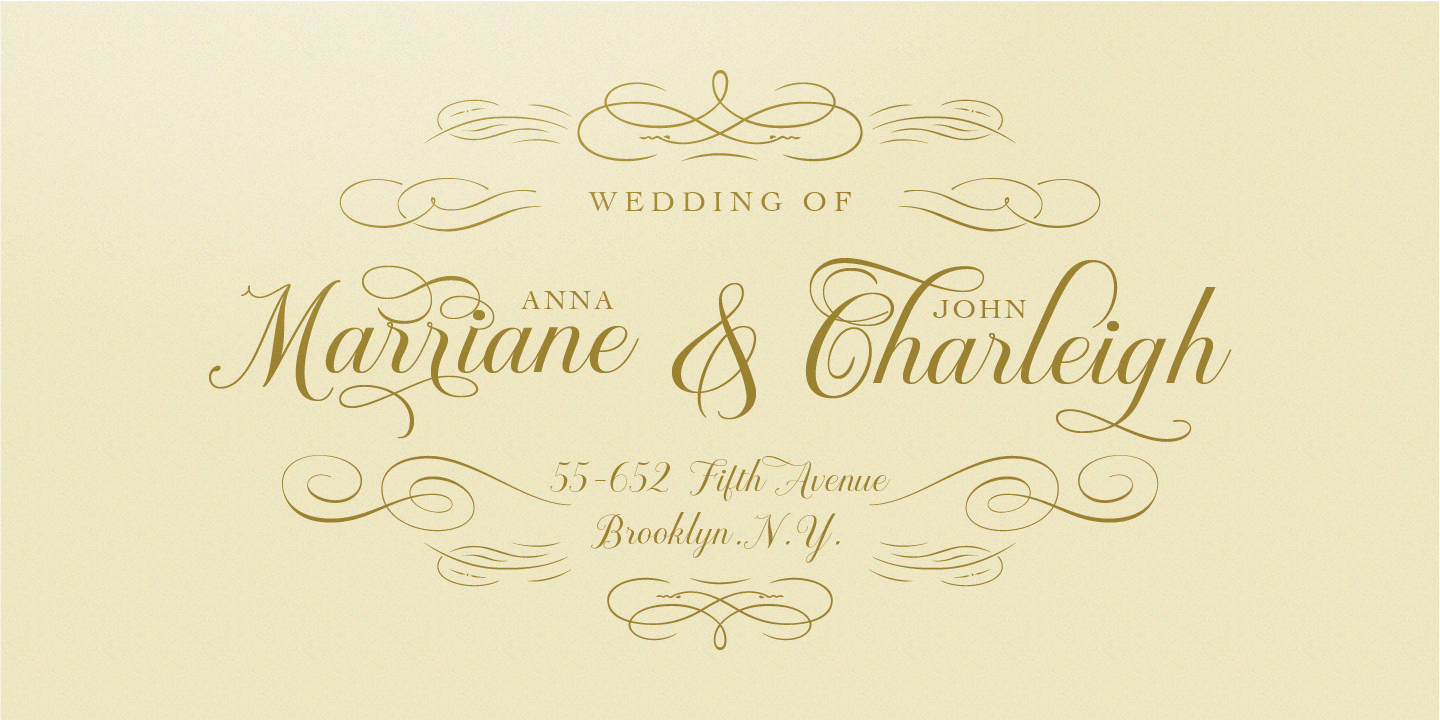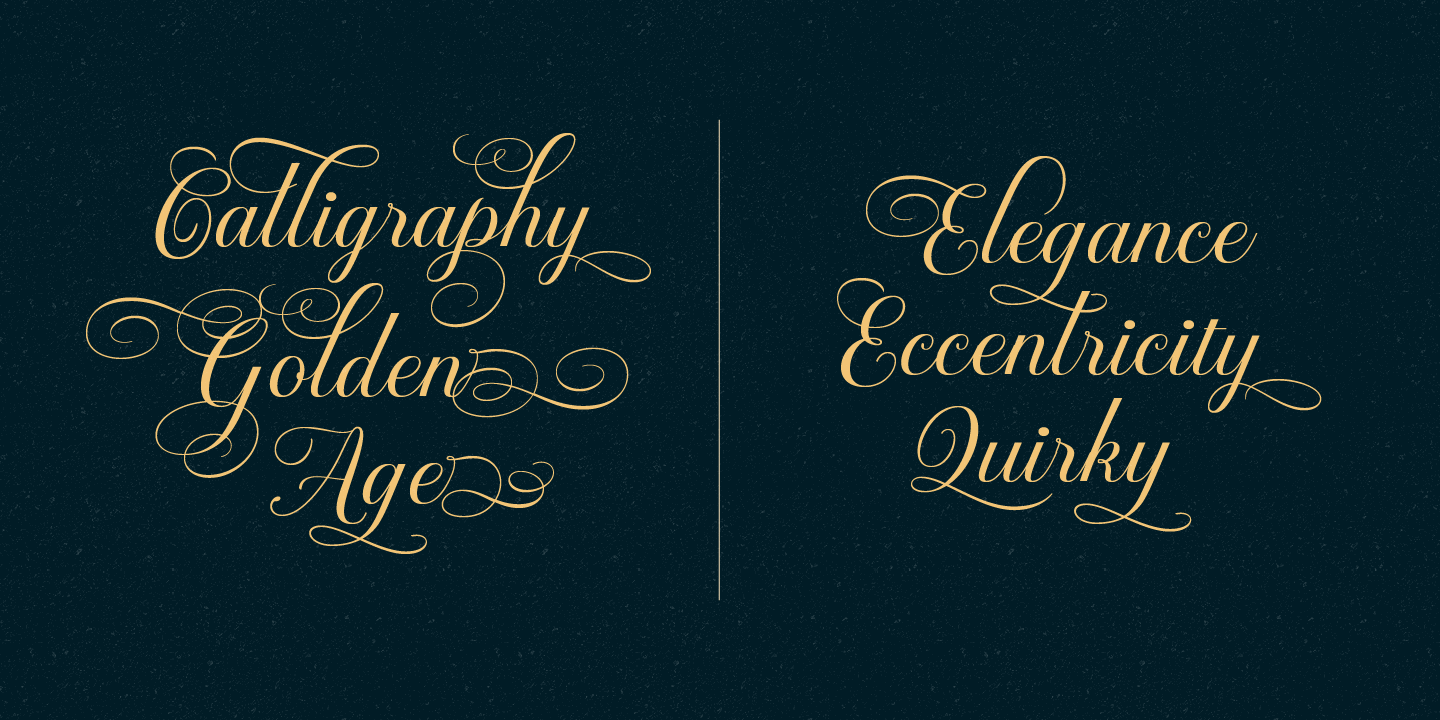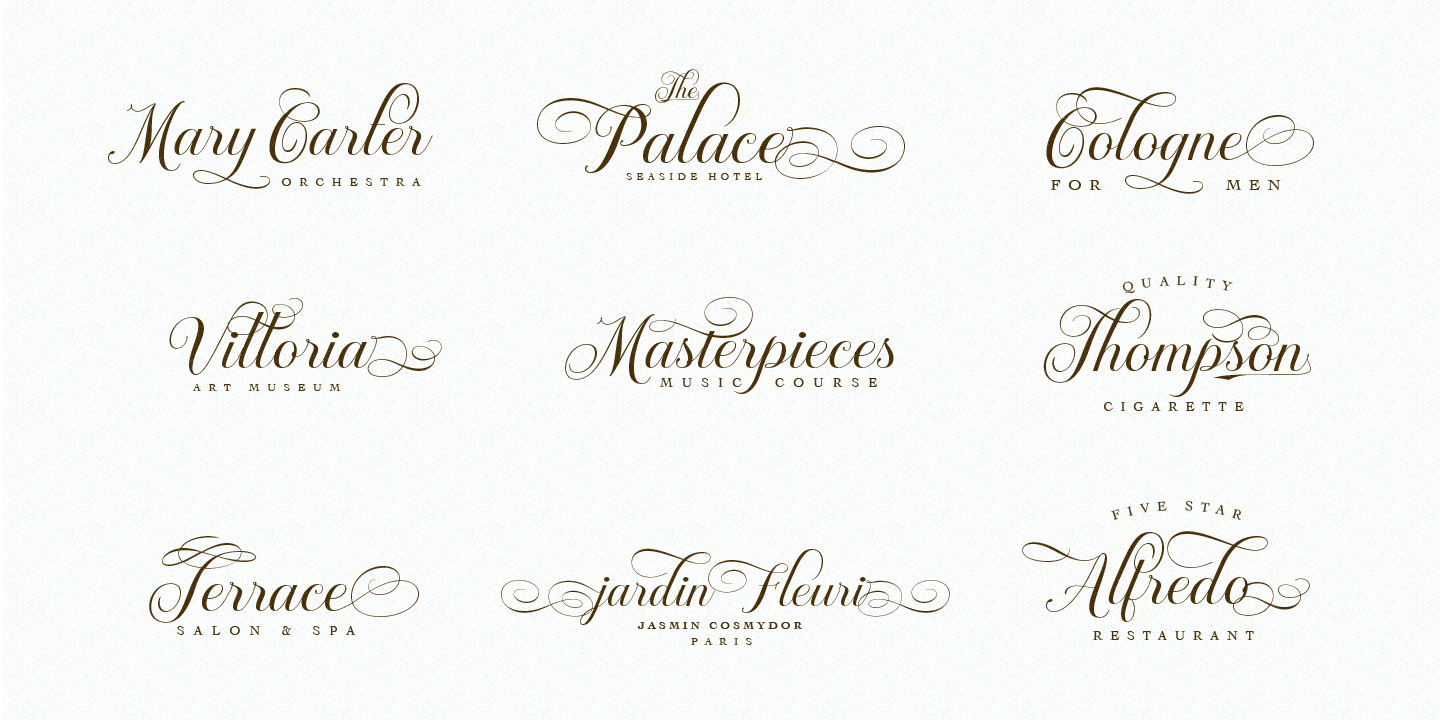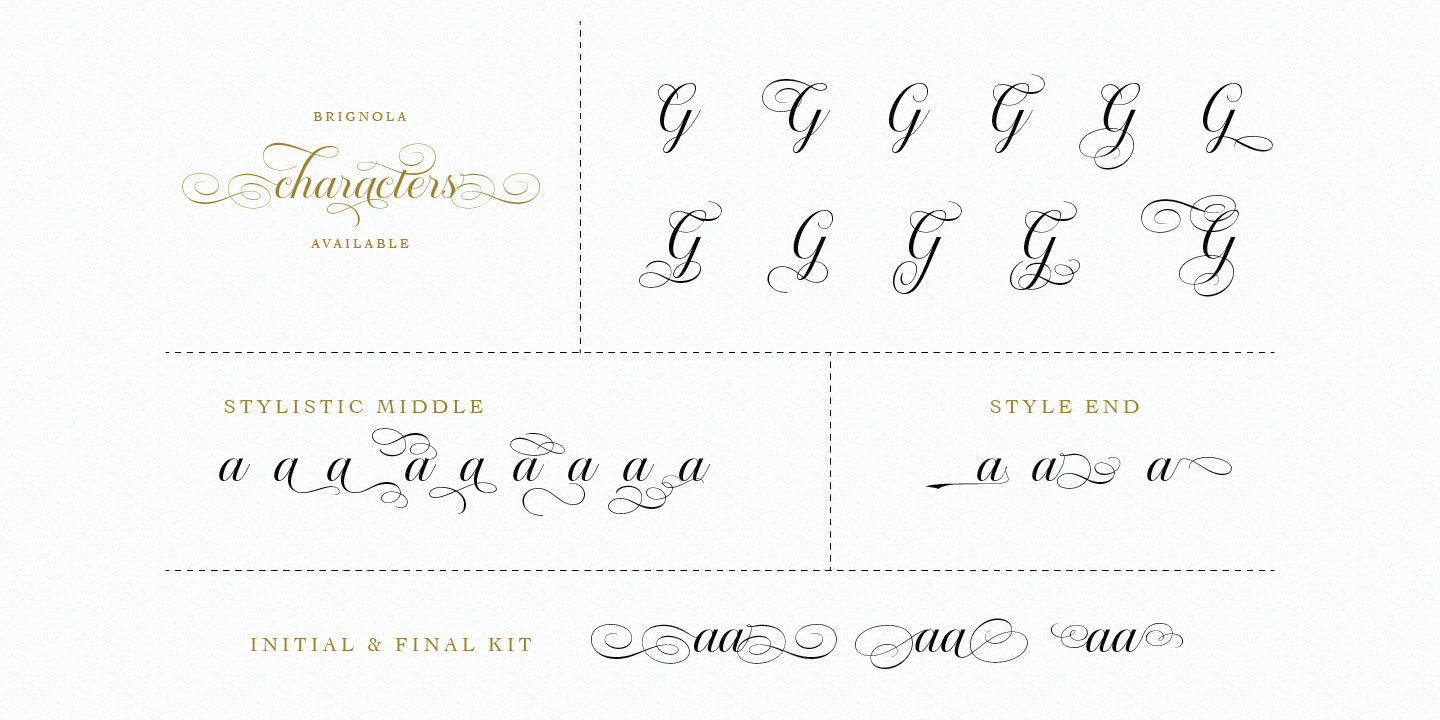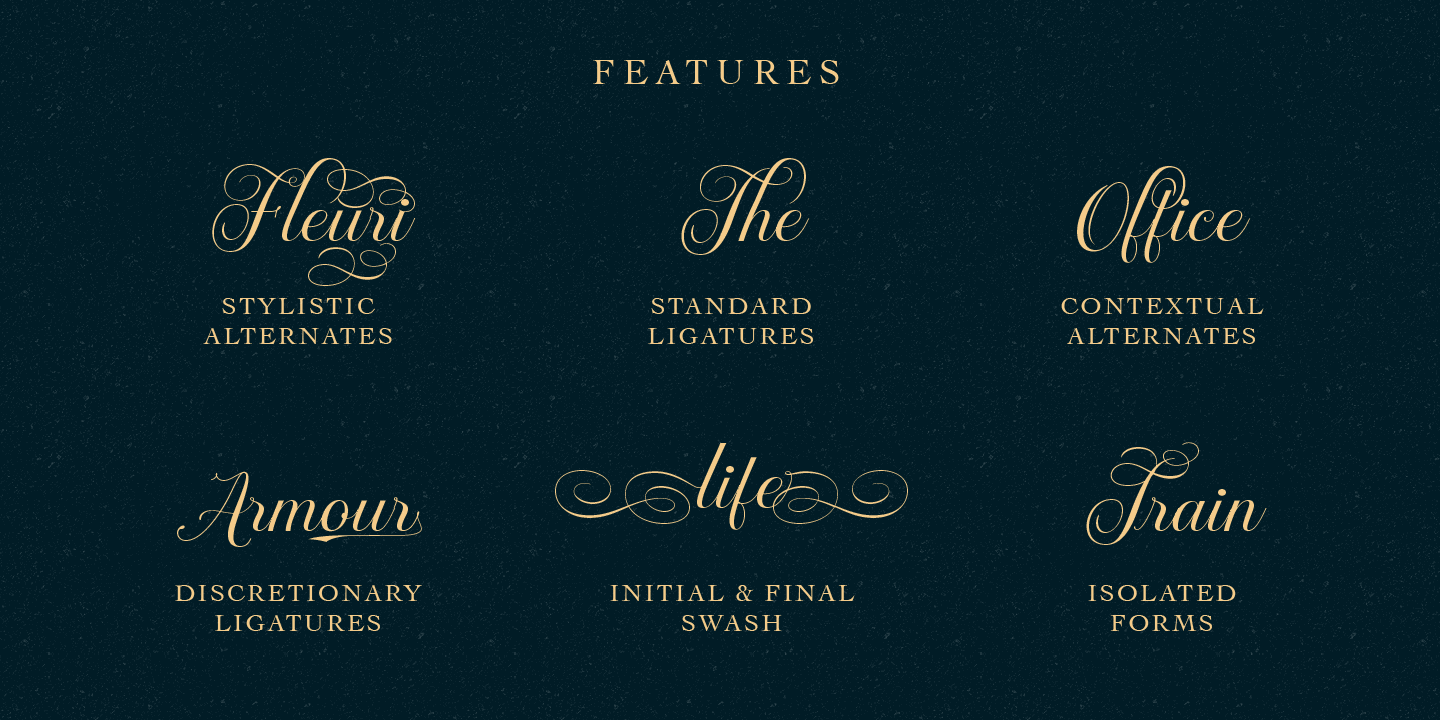
Starting with reading some book of typography, that made me inspired to creating an elegant fonts. Calligraphy in specific. And I think the calligraphy have an advantage for the alternate characters, It has a Tons of style for explore in just one letter.…